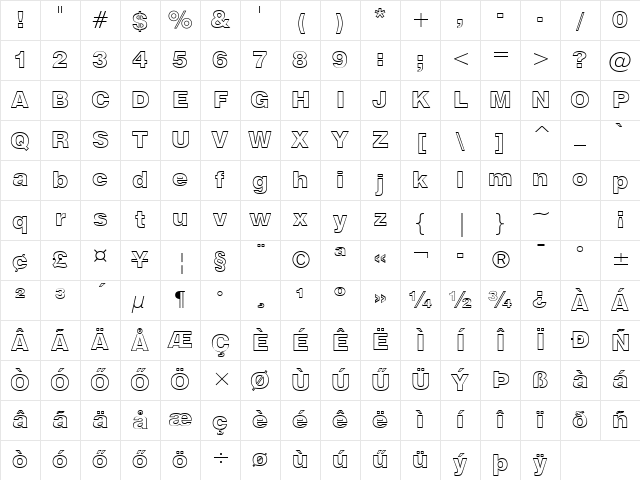
Huni_Swiss 733 BlkOul WS Regular
Design Context for Huni_Swiss 733 BlkOul WS
Huni_Swiss 733 BlkOul WS is a composed and adaptable typeface that performs quietly and consistently across a wide range of design contexts.